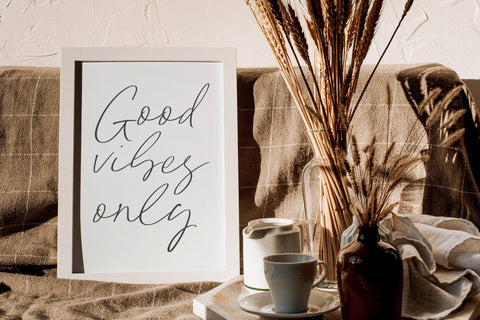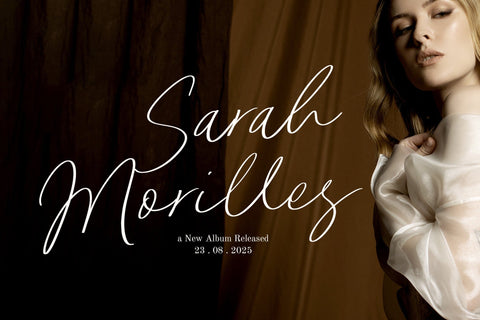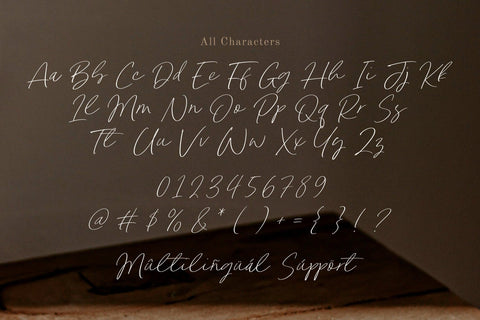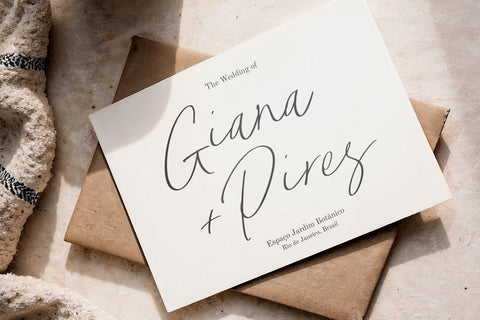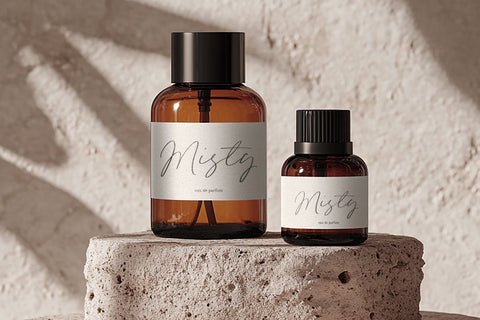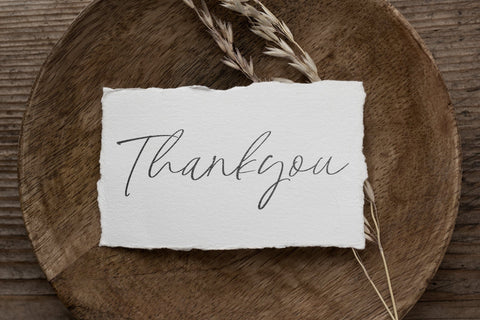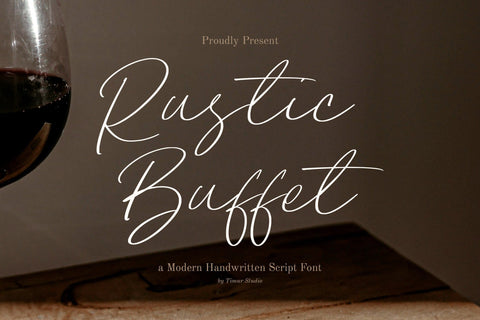
Rustic Buffet - Modern Handwritten Script Font
Rustic Buffet is a Modern Handwritten Script Font
This font is a modern handwritten script font that blends casual elegance with a touch of rustic charm. Featuring fluid strokes and natural curves, it’s perfect for branding, wedding invitations, social media graphics, and other creative projects that call for a handcrafted feel. Its versatile style balances sophistication and warmth, making it ideal for both digital and print designs.
Rustic Buffet Font also supports multilingualism